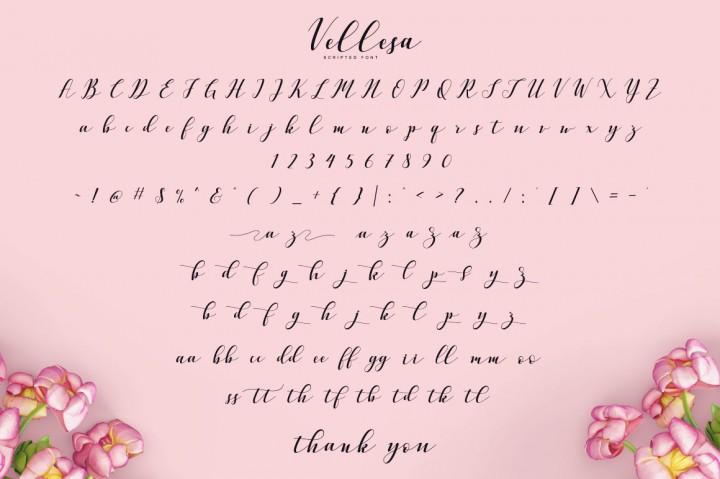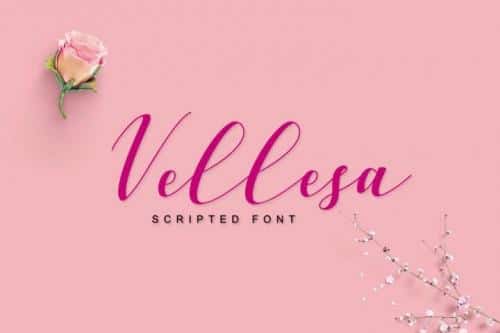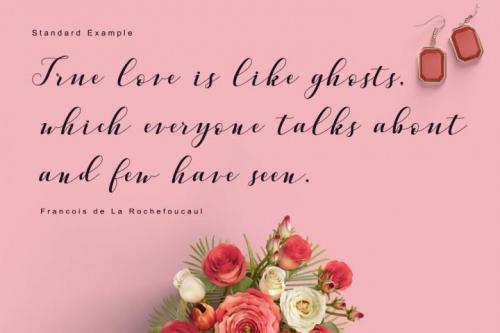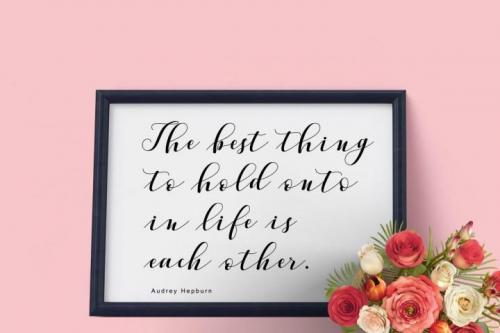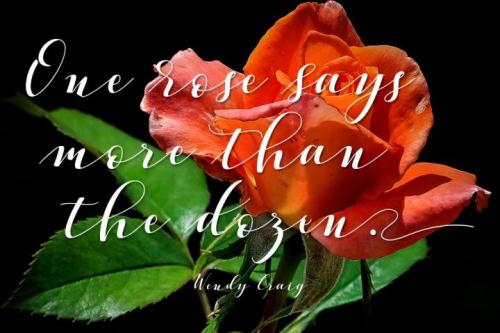
Vellesa Script a new fresh & modern script with a handmade calligraphy style, decorative characters and a dancing baseline! So beautiful on invitation like greeting cards, branding materials, business cards, quotes, posters, and more!!
Vellesa Script come with 359+ glyphs. The alternative characters were divided into several Open Type features such as Swash, Stylistic Sets, Stylistic Alternates, Contextual Alternates. The Open Type features can be accessed by using Open Type savvy programs such as Adobe Illustrator, Adobe InDesign, Adobe Photoshop Corel Draw X version, And Microsoft Word. And this Font has given PUA unicode (specially coded fonts). so that all the alternate characters can easily be accessed in full by a craftsman or designer.
- Designer: PointLab